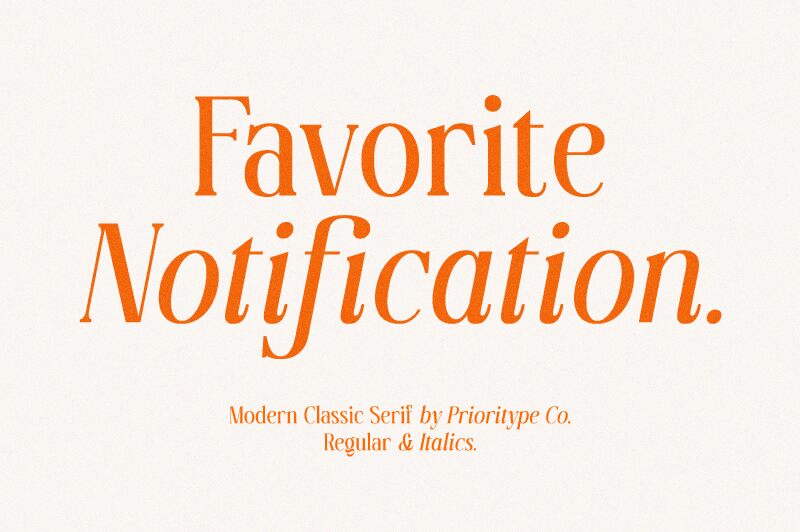
Favorite Notification by Prioritype Co is a beautifully crafted serif typeface with a semi-condensed width, perfect for various projects. This font style exudes elegance and sophistication, making it ideal for creating stunning invitations, book covers, and editorial designs. Its legibility also makes it suitable for web design and branding materials such as logos and packaging. With its clean lines and classic appeal, Favorite Notification is sure to become your go-to font choice for any project that requires a touch of refined grace. Upgrade your designs today with the timeless beauty of Favorite Notification.